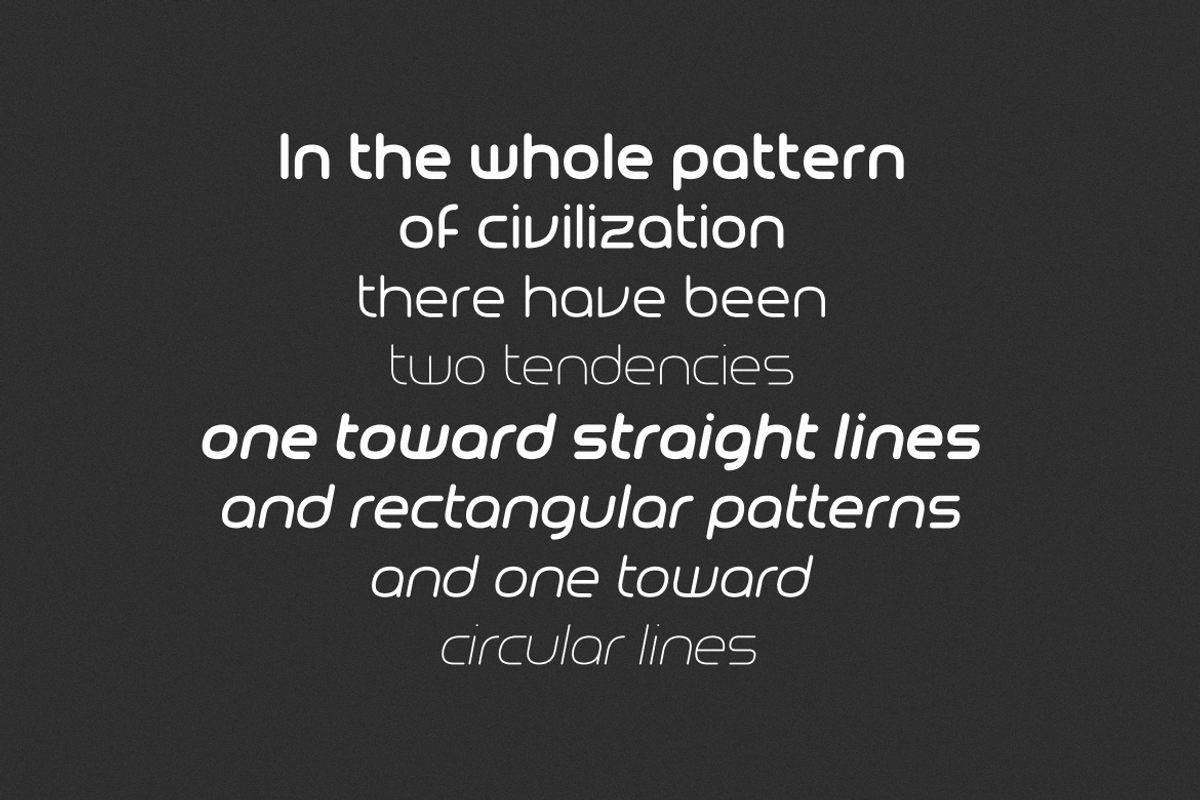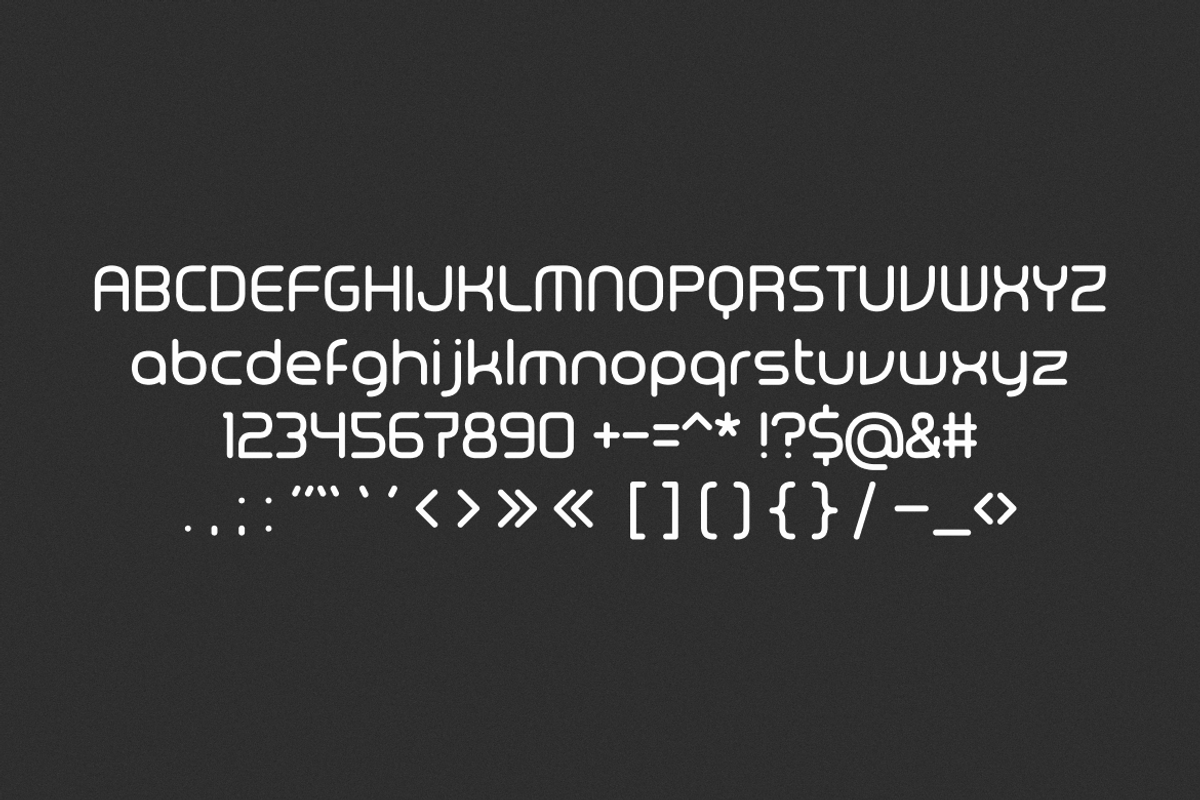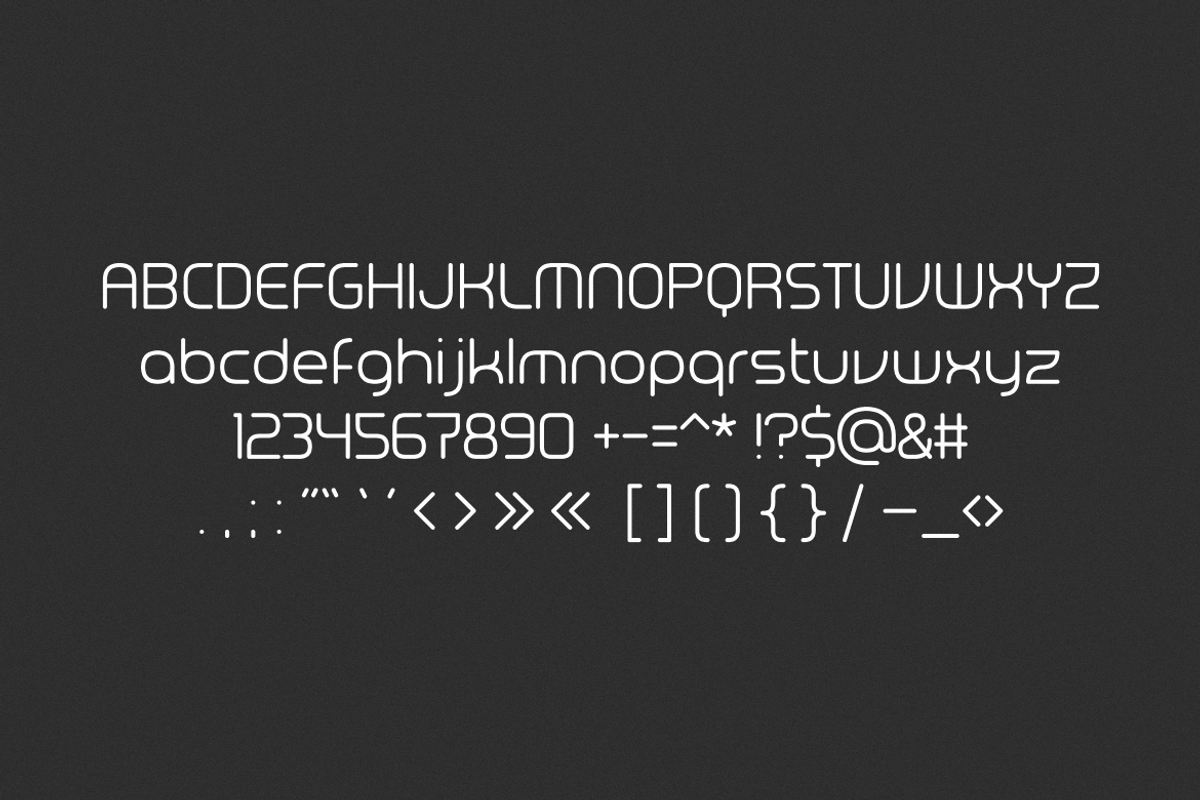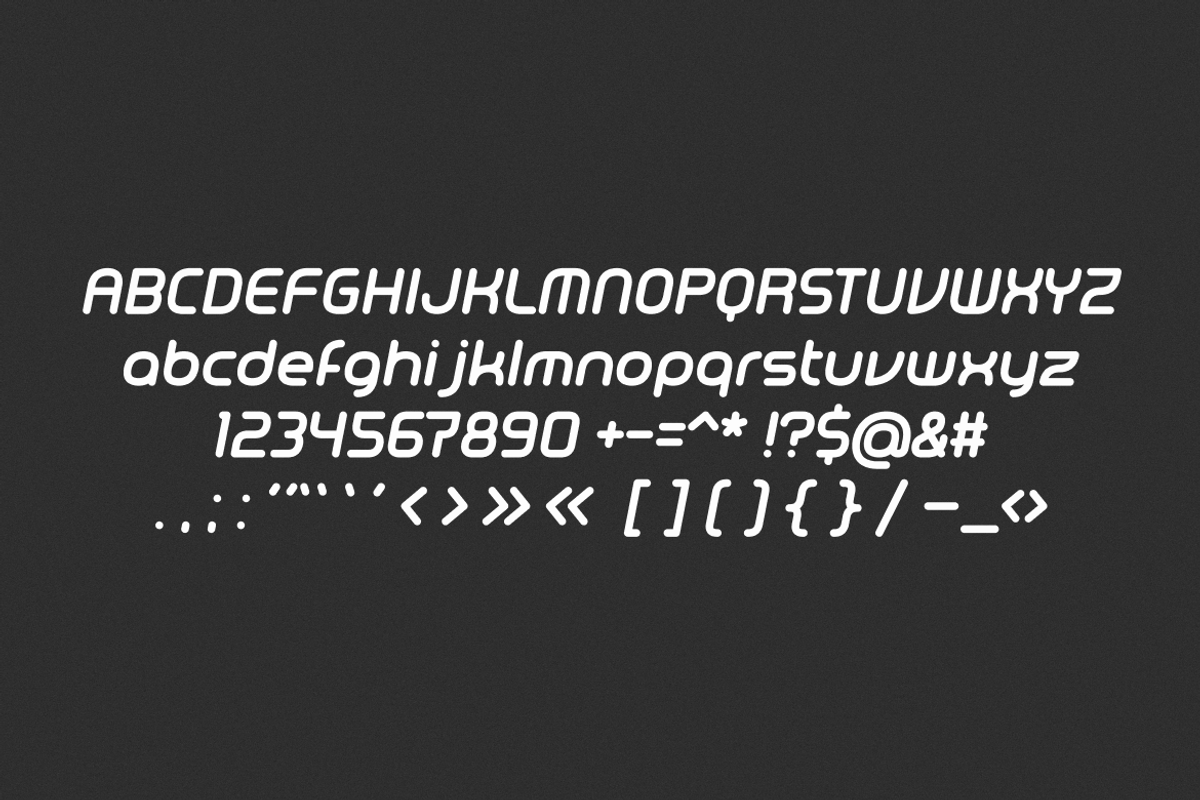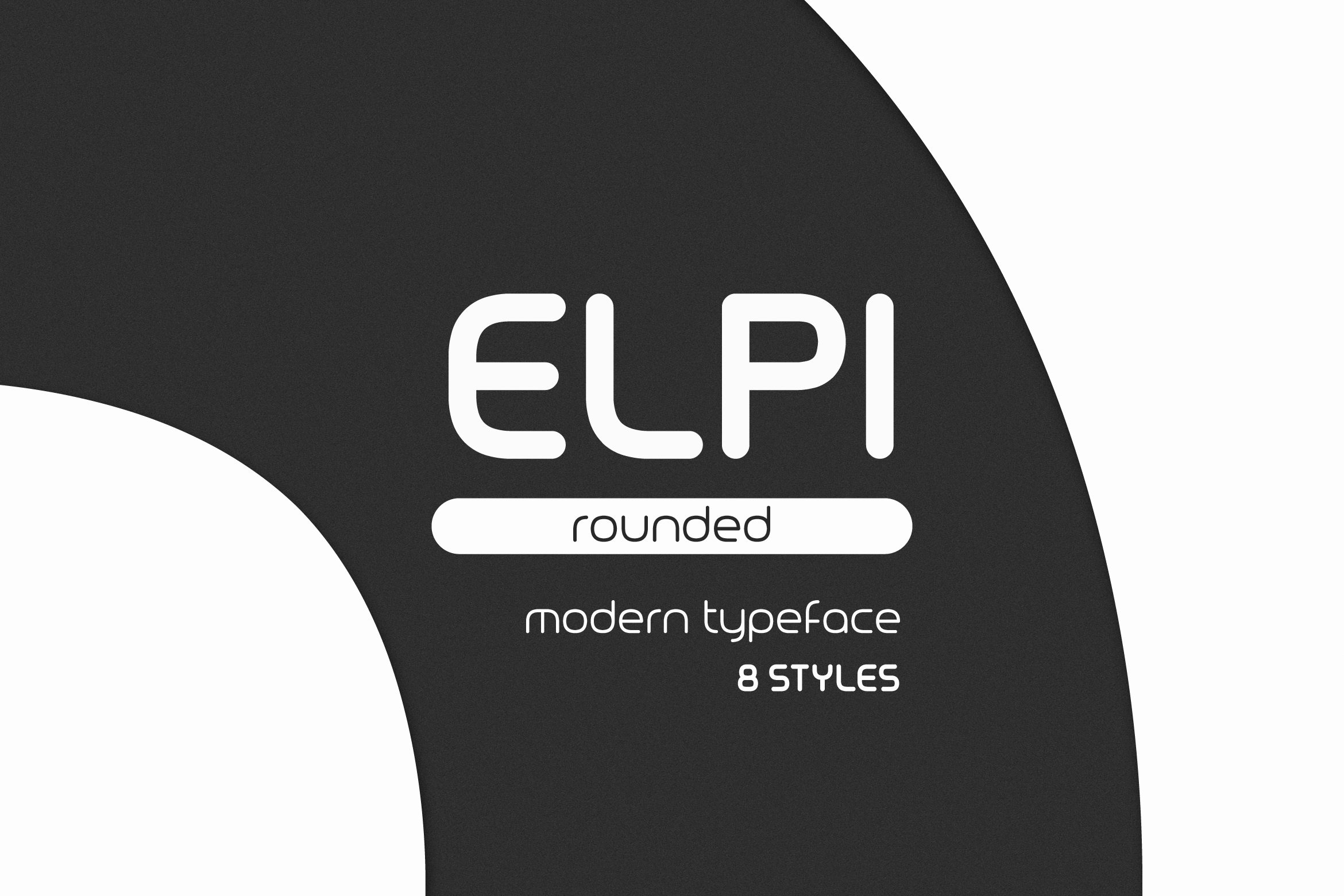
Elpi Rounded - Modern Typeface
Elpi Rounded - beautifully crafted modern typeface with 8 styles for your awesome projects.
- Consistentsy
- Well organized
- Easy to use